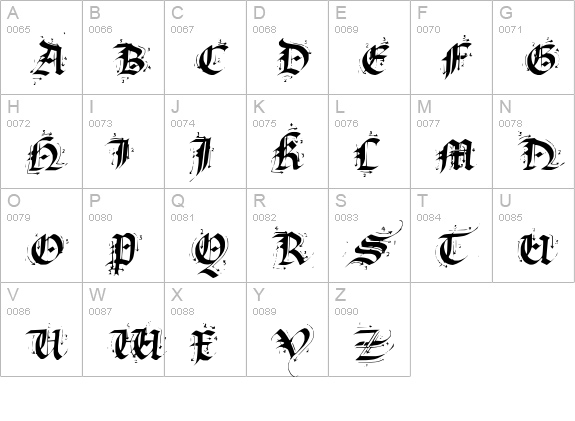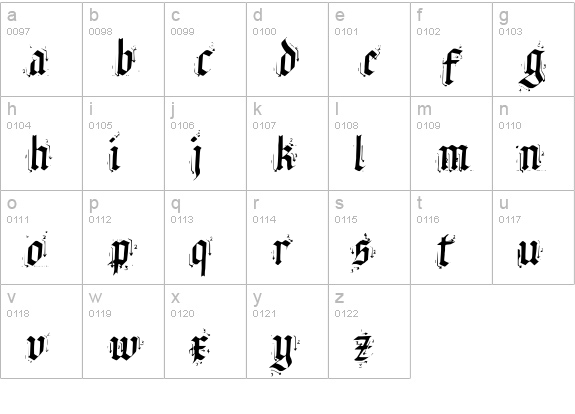
Satanas Humanum Salvator Font Details
Introducing Satanas Humanum Salvator, a captivating and versatile font that seamlessly blends elegance with a touch of mystique. This extraordinary typeface is a true testament to the artistry of typography, as it effortlessly captures the essence of sophistication and allure. Satanas Humanum Salvator features a unique combination of graceful curves and bold strokes, resulting in a harmonious balance that is visually striking and visually stunning. Each letter is meticulously crafted, exhibiting intricate details that add depth and character to any design. This font is a perfect choice for various creative projects, whether it be for branding, logo design, editorial layouts, or website headers. Its versatility allows it to effortlessly adapt to different styles, making it an excellent tool for designers seeking to make a bold statement. One of the most remarkable aspects of Satanas Humanum Salvator is that it is available for free. Yes, you read that right! This exquisite font can be freely downloaded at FontsMarket.com, allowing designers and creatives from all walks of life to incorporate its beauty into their projects without any financial constraints. With its captivating presence and unmatched elegance, Satanas Humanum Salvator is bound to become a favorite among designers and typophiles alike. So why wait? Embrace the allure and sophistication of this remarkable font and let your creativity soar to new heights. Download Satanas Humanum Salvator today and experience the magic for yourself.